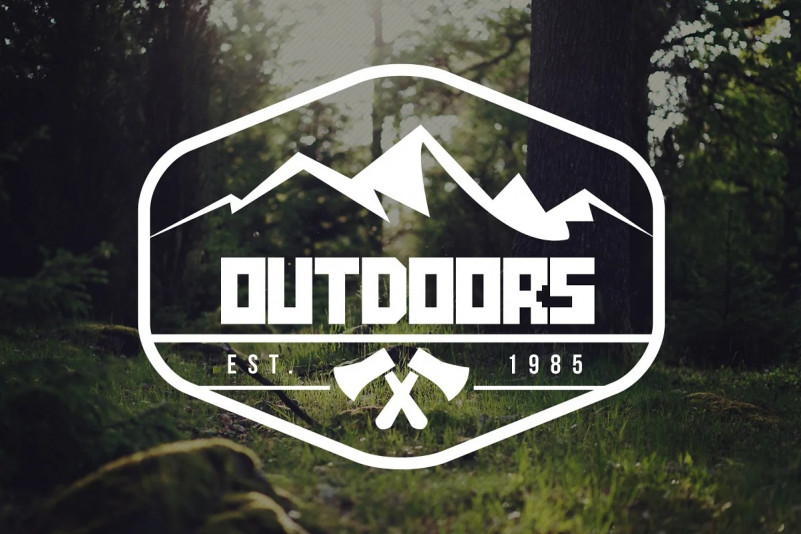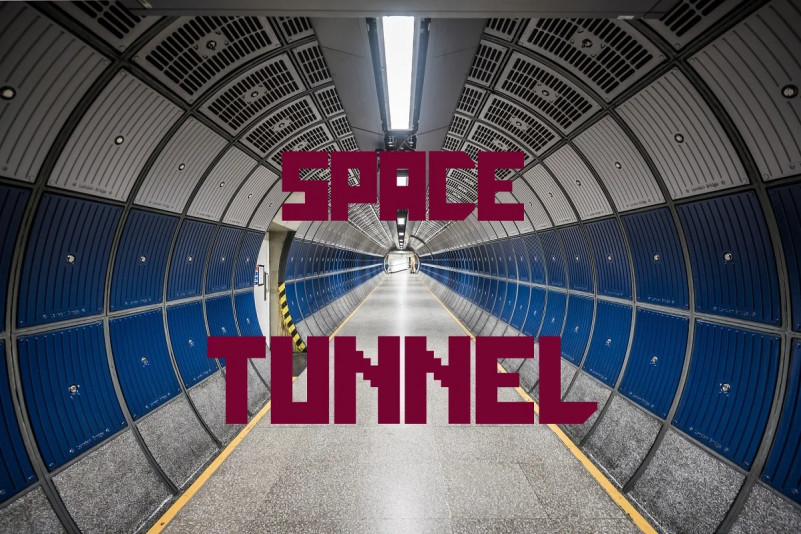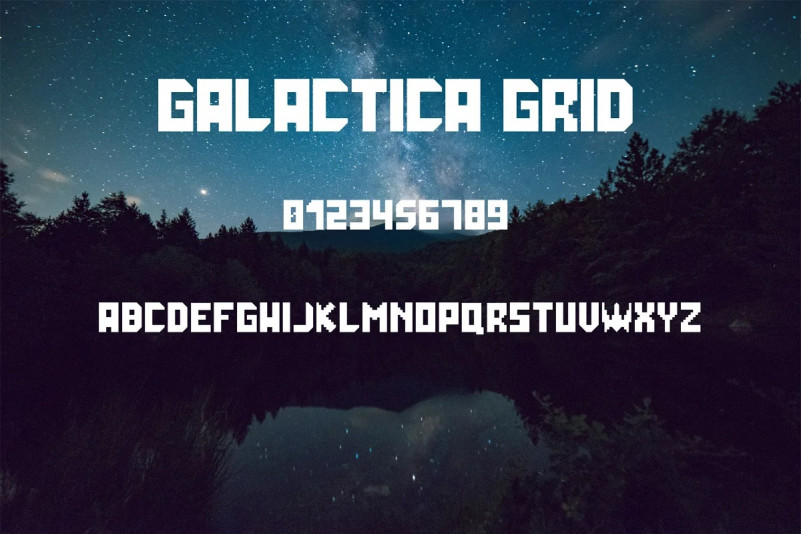
Galactica Grid Font
Galactica Grid Display Font
This font is a sharp, clean, and bold futuristic typeface. Made from font designer named vladocar. Great for posters, logos, packaging, invitations, website titles, T-Shirts and more.